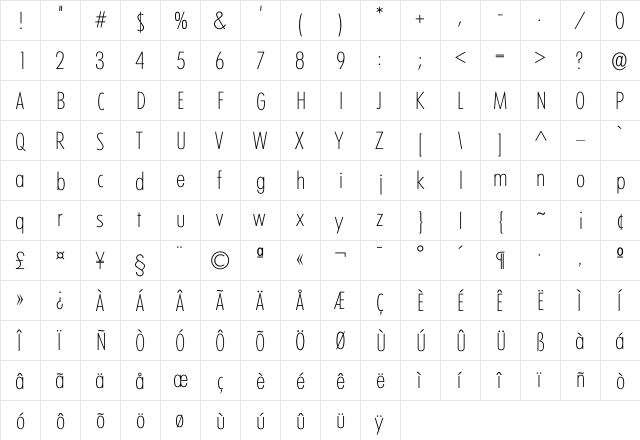
Climerick Xlight Font Preview
Climerick Xlight
Climerick Xlight Font Details
Design Context for Climerick Typeface
Climerick is a composed and adaptable typeface that performs quietly and consistently across a wide range of design contexts. Its slender proportions lend an understated elegance to any composition.